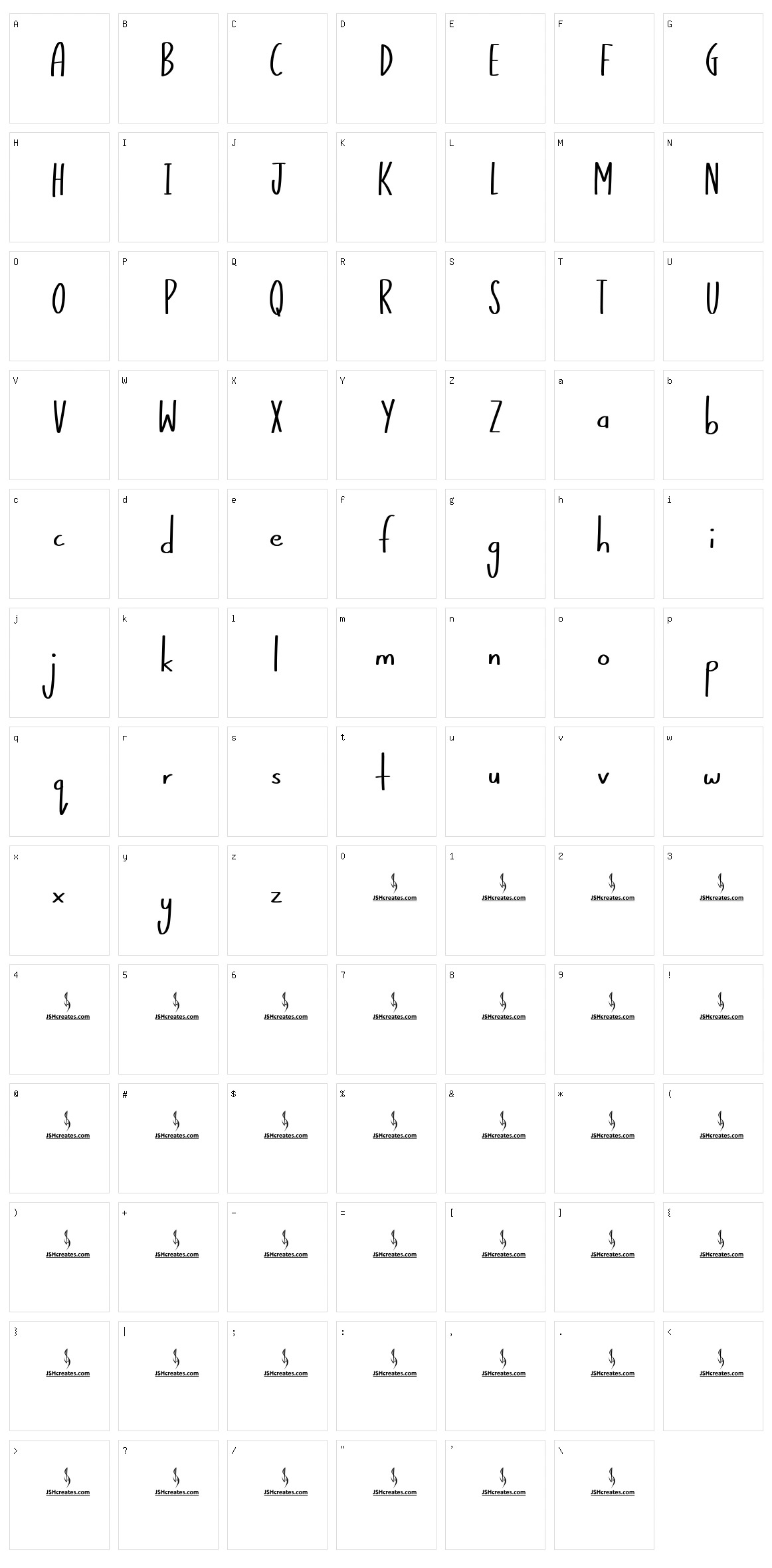
The free font Perfect Style is carefully designed by JSH creates, showcasing a thoughtful balance of creativity and usability and falls under the Script font style. When you download the ZIP file, it contains only 15.44 KB of font files, making it lightweight and quick to download. Please review the license details below to understand permitted usage and distribution rights. If license information is not available, we recommend using this font for personal projects only or contacting the author directly for commercial usage permissions.
Created by Jonathan S Harris